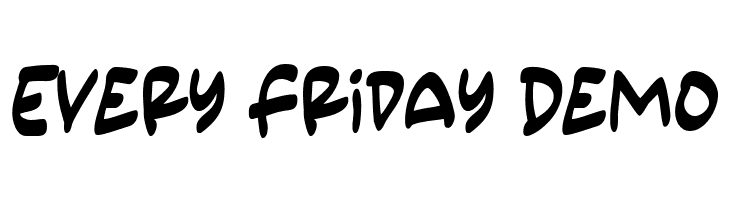
A playful and energetic handwritten font with fluid strokes.
A bold and expressive script font with dynamic and playful letterforms.
A bold, playful font with industrial and hand-drawn elements.
A playful, hand-drawn style font with consistent stroke thickness and whimsical character design.
A playful, whimsical font with a handwritten quality and rounded edges.
A casual, handwritten font with a playful and informal style.
A bold, hand-drawn font with a playful, sketch-like appearance.
A bold, playful handwritten font with a casual and dynamic style.
A playful, hand-drawn font with bold, rounded strokes and a whimsical charm.